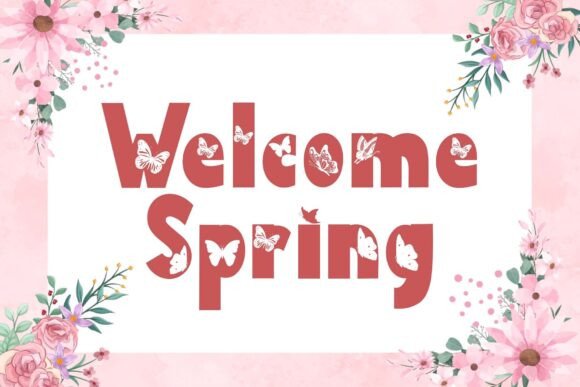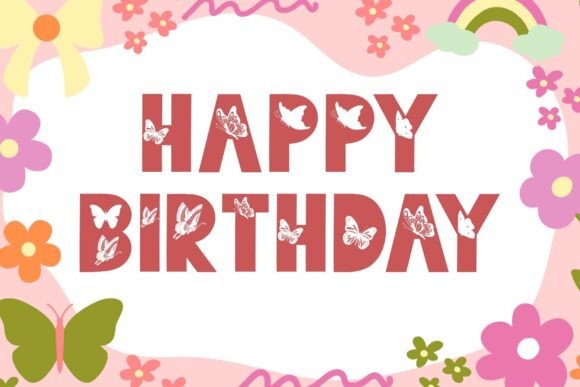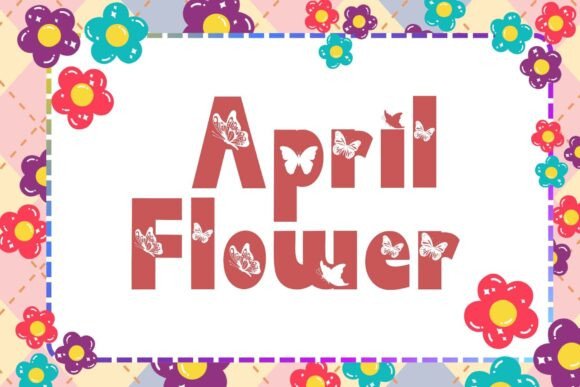
Butterfly Season Font
“Butterfly Season” is a display font with butterfly decoration on each letter. This font is equipped with uppercase, lowercase, numeral, punctuations and multilingual support. Very suitable for use for spring, summer, holiday, posters, banners, branding, stickers, logos and others.